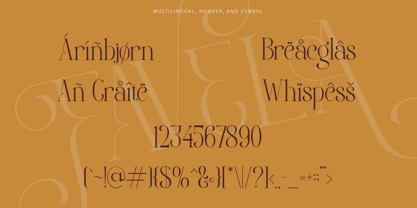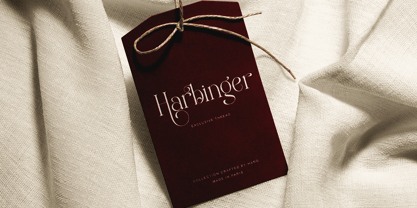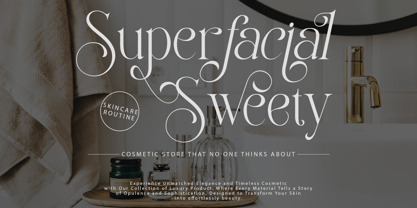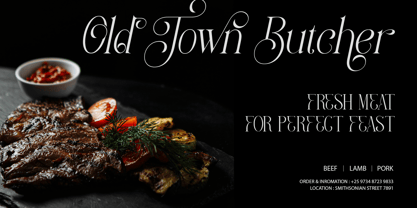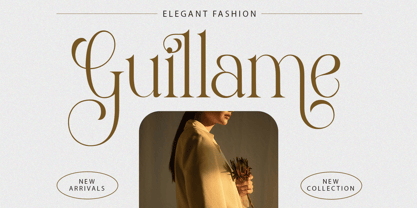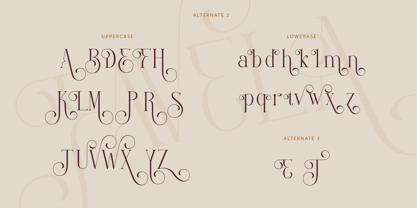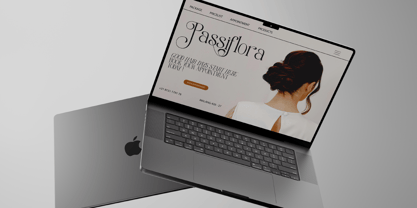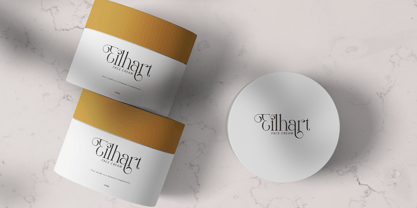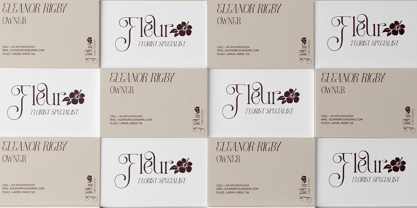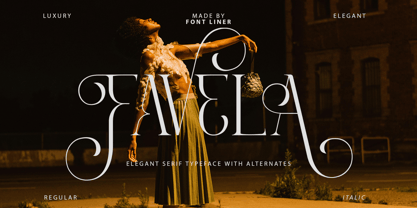
Favela
von Font Liner
Die Schriftfamilie Favela wurde von Ghina Luthfiarieska entworfen und von Font Liner veröffentlicht. Favela enthält 2 Stile und Familienpaketoptionen.
Favela, elegant serif typeface. Favela has many stylish alternates with swashes that can make your lettering / logotype become more attractive. The clean and neat of a serif combined with the swirl swashes makes this font one of a kind! Very suitable for magazine, headline, website, ads, product package and all type of design project you have.
- Favela Regular
- Favela Italic
- 70+ Stylistic Alternates
- Multilingual Support